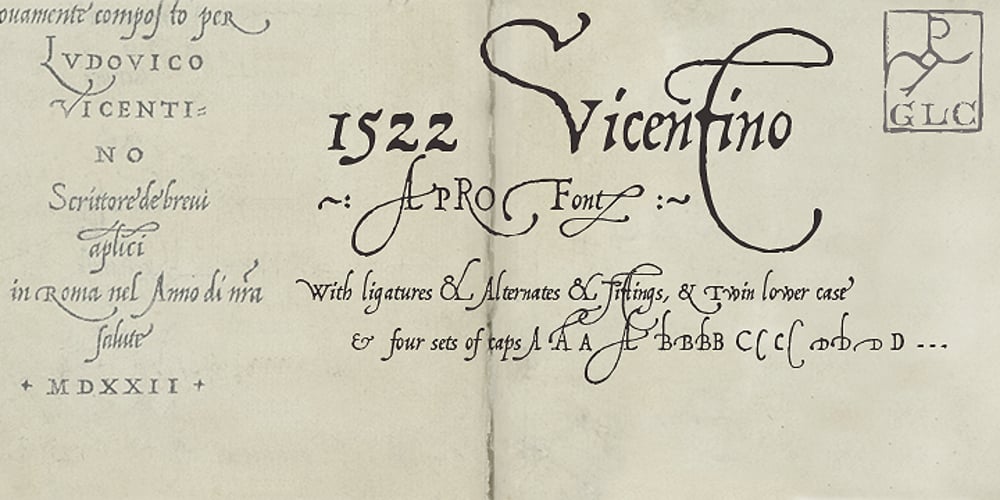
1522 Vicentino Font Family was designed by published by GLC. 1522 Vicentino contains 1 styles and family package options. This font is mainly inspired from the engraved characters of the small book known as “Operina”, or “The method and rules for writing cursive letters or chancery script” from the famous calligrapher Ludovico Vicentino Arrighi, published in Roma in 1522 and signed with simplicity “Ludovico Vicentino”. The font contains a large set of standard ligatures and alternative characters: two lower cases, four sets of standard capitals, long s and variants, titlings, each feature easy to use with OTF managing software. It is a pro font, containing Baltic, Eastern, Central, Western European and Turkish diacritics.